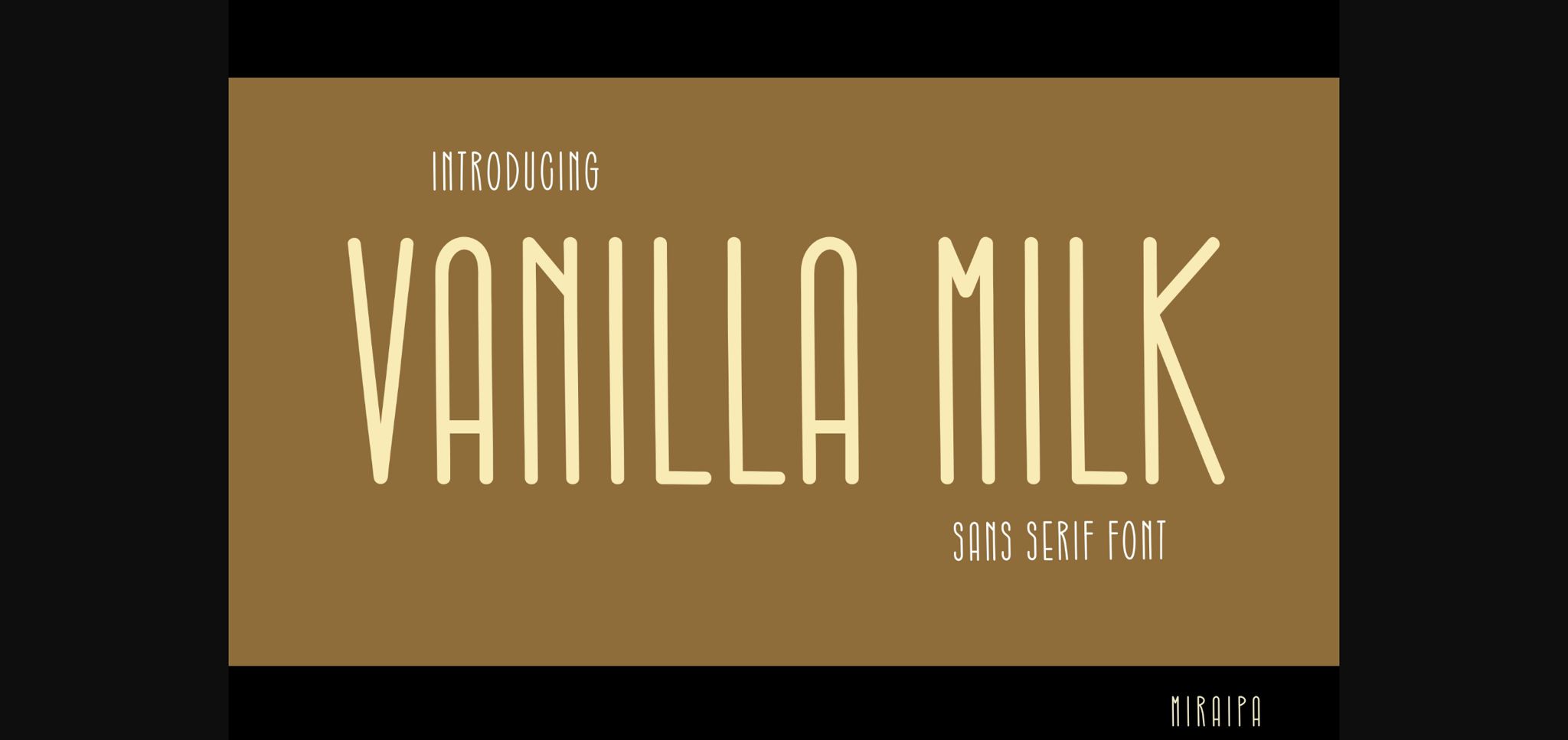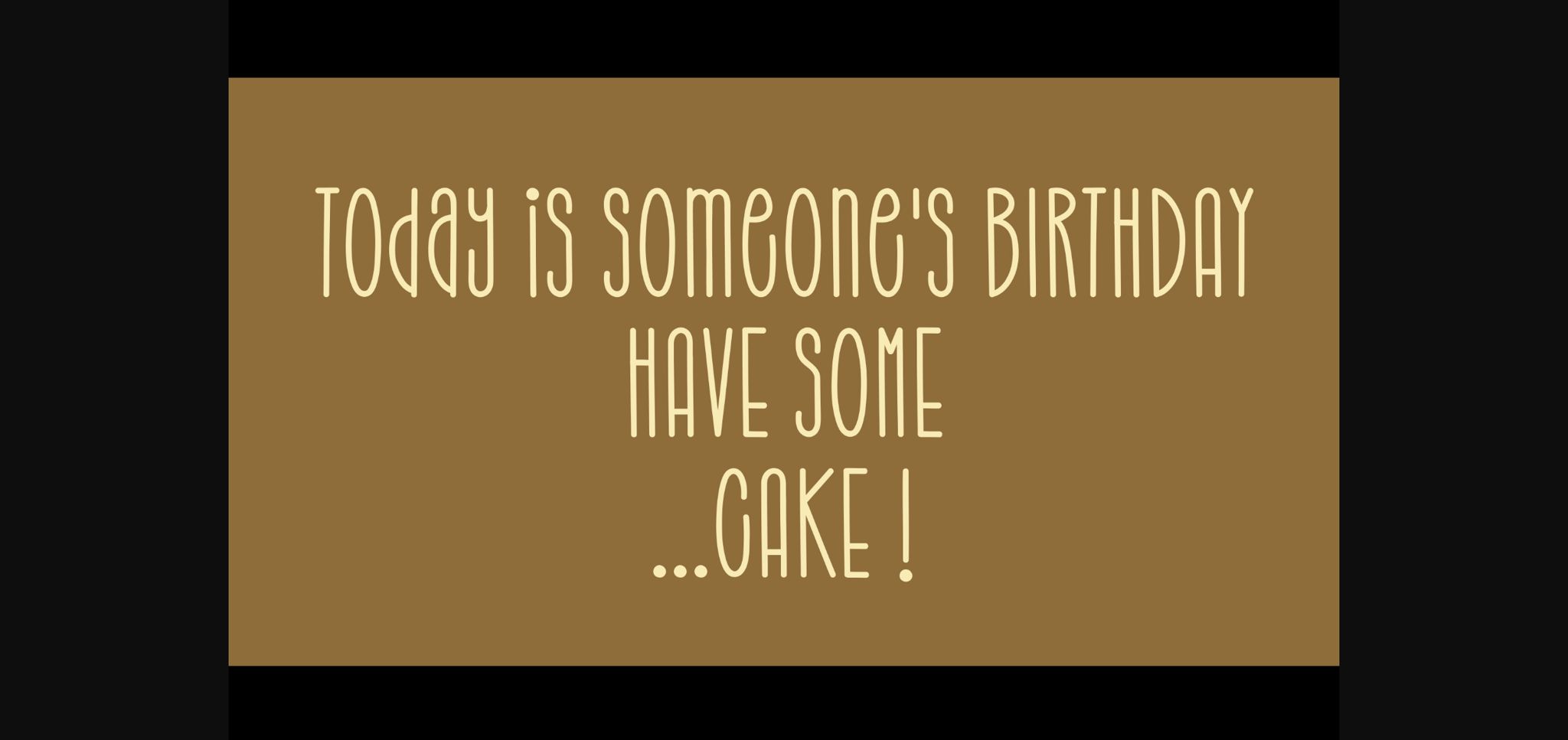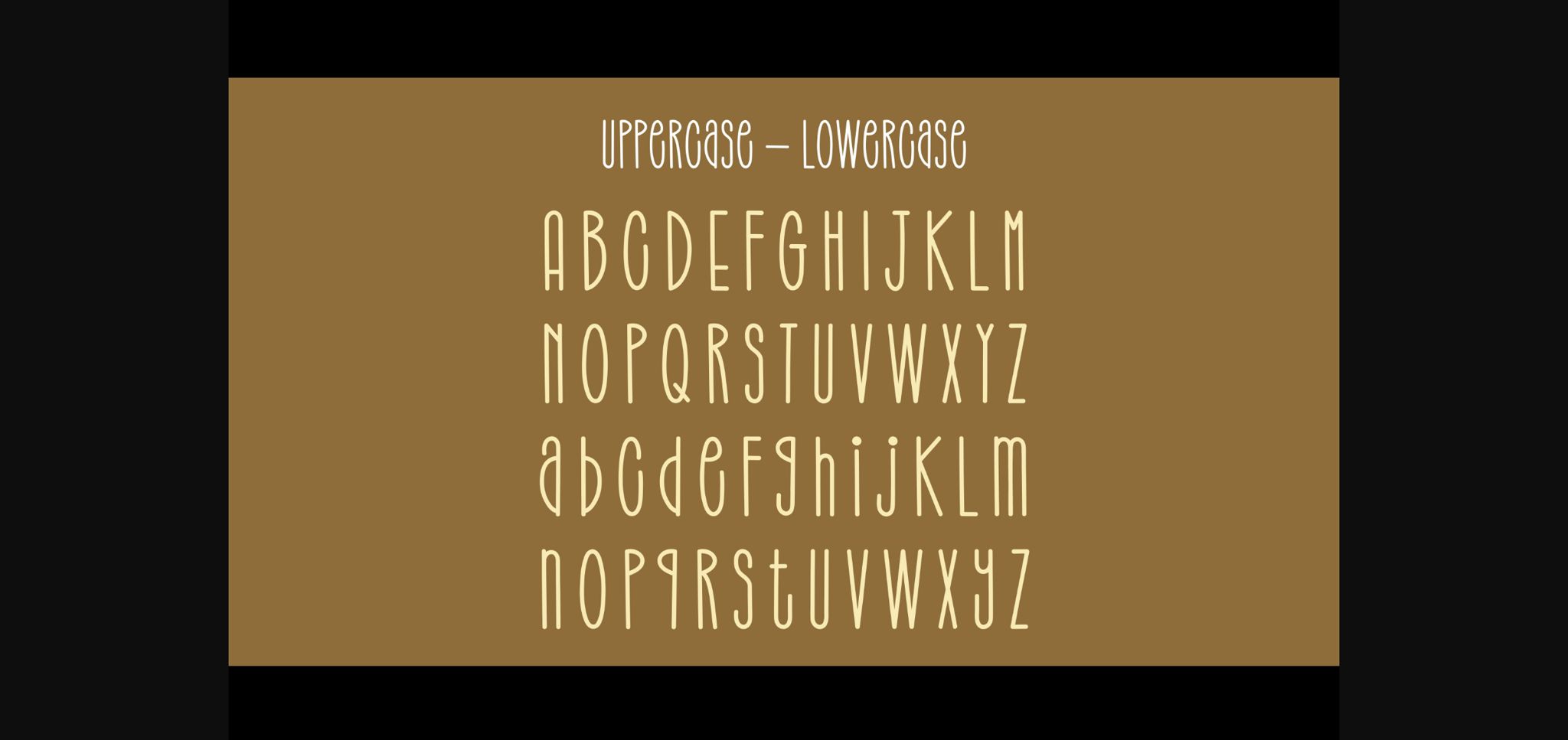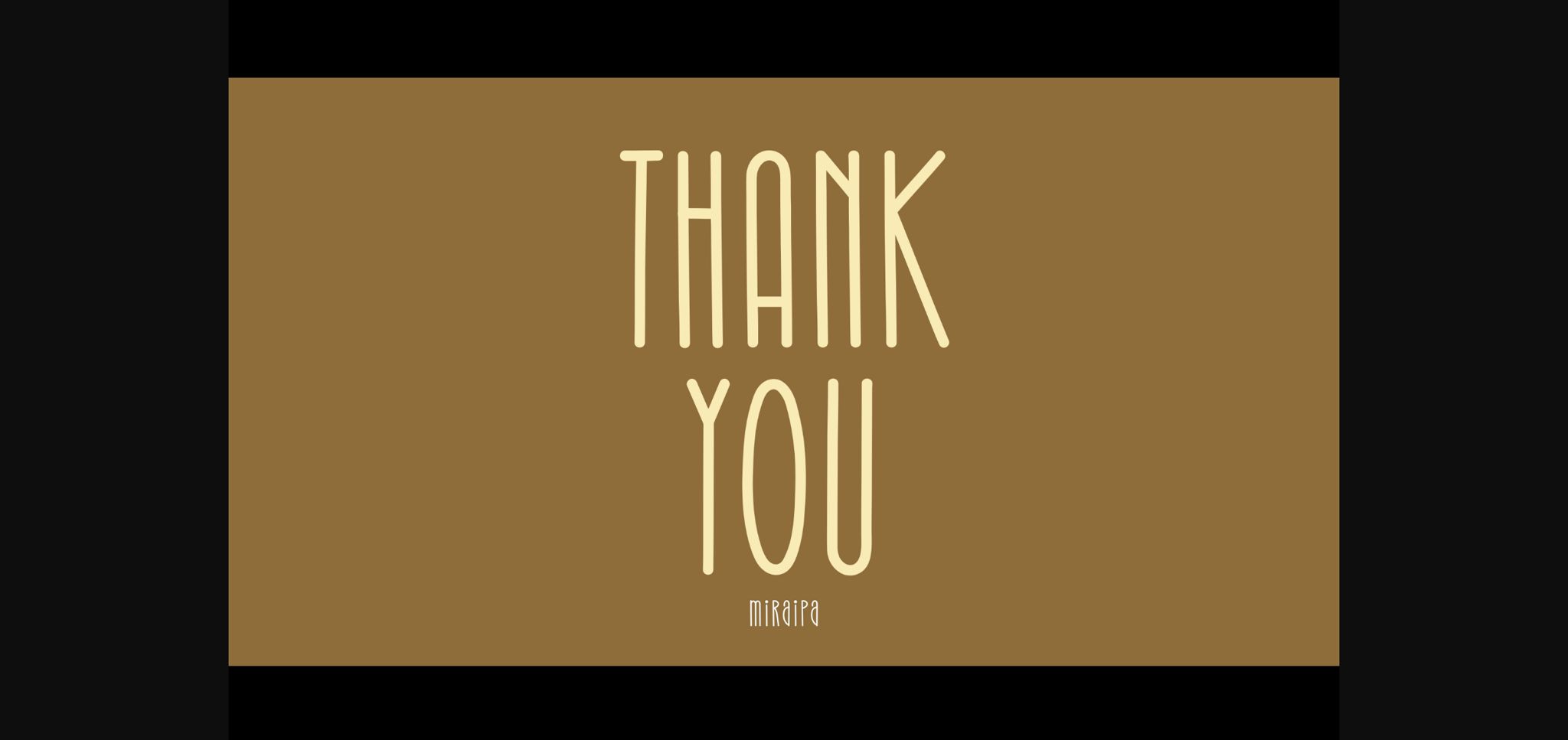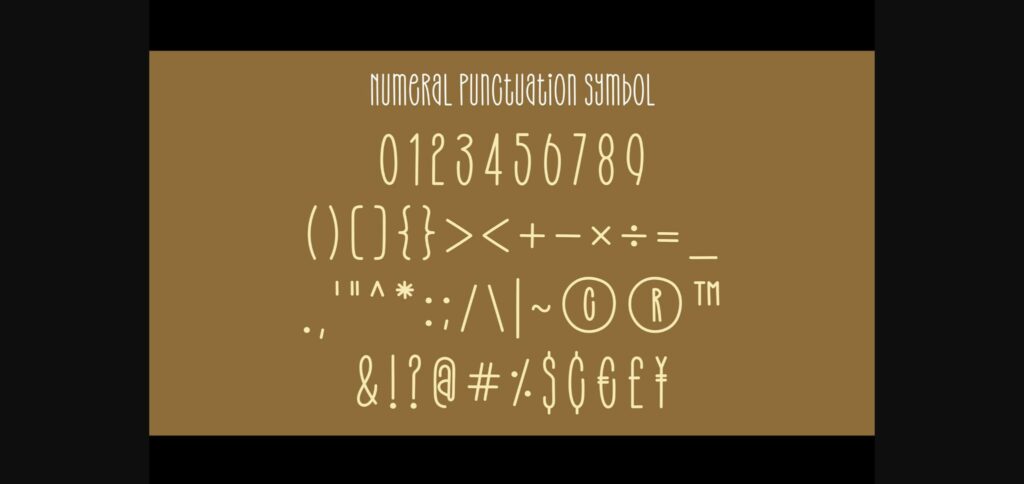
HomeSans Serif FontsVanilla Milk Font Sans Serif Fonts Vanilla Milk Font FacebookXPinterestWhatsApp 1 of 7 ... Vanilla Milk Font Poster 2... Vanilla Milk Font Poster 3... Vanilla Milk Font Poster 4... Vanilla Milk Font Poster 5... Vanilla Milk Font Poster 6... Vanilla Milk Font Poster 7... About Vanilla Milk Font Vanilla Milk is a cool and sleek sans serif font. No matter the topic, this font will be an incredible asset to your fonts’ library, as it has the potential to elevate any creation. DOWNLOAD NOW People also explored Youra Font Mommy Diary Font Welcome Valentine Font Summer Farmhouse Haredeang Font Simbaloo Font Bagero Font Walkway Font Cardigan 285 0 TagsVanilla Milk Font Previous articleCorymbia FontNext articleKitchen Cookies Font LEAVE A REPLY Cancel reply Comment: Please enter your comment! Name:* Please enter your name here Email:* You have entered an incorrect email address! Please enter your email address here Website: Save my name, email, and website in this browser for the next time I comment. Personal Use Free Relic Island 2 Personal Use Free Read more about this font Cloudy Night Personal Use Free Read more about this font Single Sleeve Personal Use Free Read more about this font Puisi Adinda Personal Use Free Read more about this font BLOG Fonts That Capture the Spirit of New York City New York City is more than just a place—it’s an experience, a rhythm, a visual language... Where to Buy American Fonts Online in 2024 Best Fonts for YouTube Videos: Make Your Thumbnails Stand Out Free Fonts Risk: Why Free Fonts Can Be Dangerous for Designers